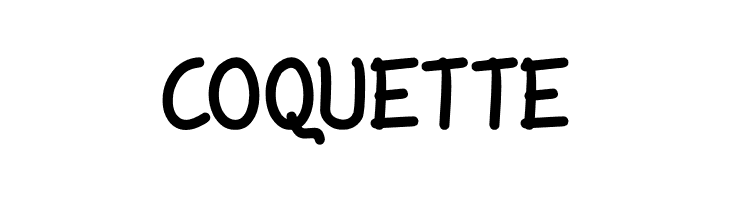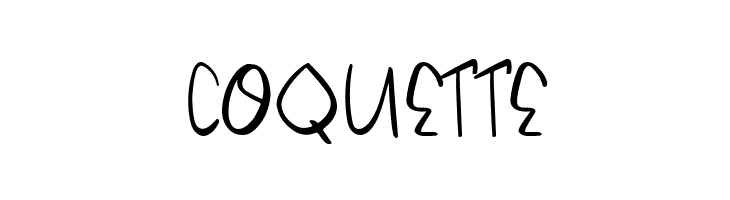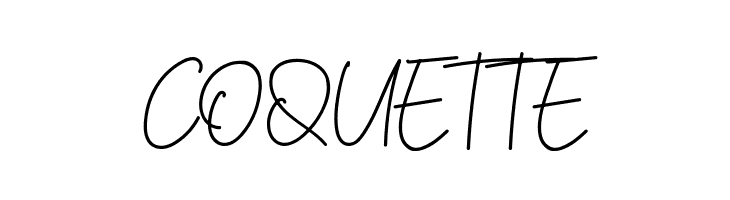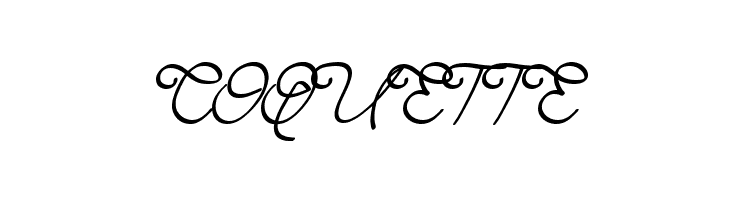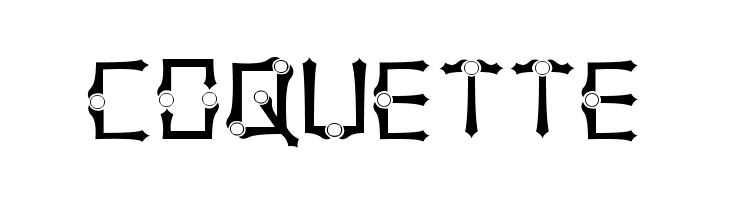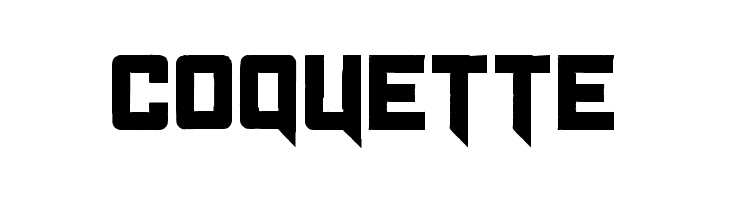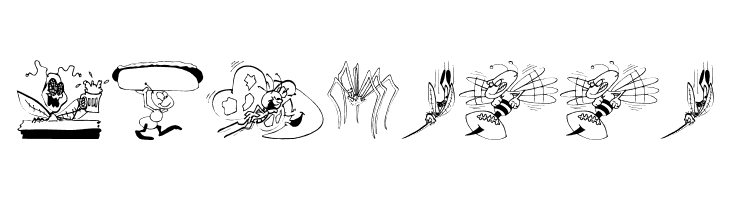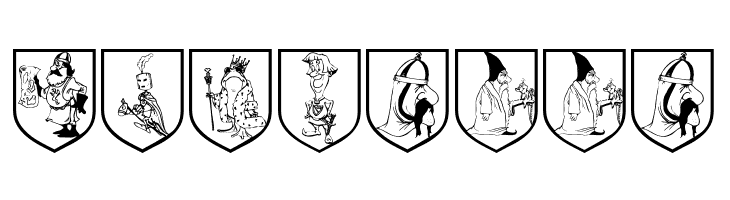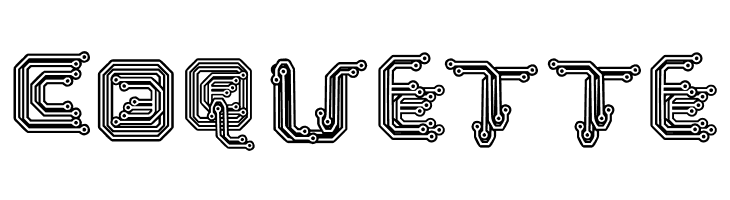
A bold, decorative font with interconnected loops and curves, ideal for creative display use.
A playful, hand-drawn font with a quirky and lively design.
Playful handwritten script font.
A decorative font with vine-like, organic letterforms.
A bold, geometric font with a strong, industrial aesthetic.
A bold, modern font with geometric lines and tight spacing.
A playful, illustrated display font with character drawings inside shields.
A playful and whimsical cartoon-style font with detailed illustrations.
A modern, decorative font with interconnected, flowing characters.
A modern, flowing font with interconnected, cursive-like characters.
A bold, edgy font with jagged, brush-like strokes and a graffiti-inspired style.
A bold, geometric display font with a retro arcade-inspired style.
A bold, playful font with a retro gaming vibe and geometric shapes.
A vintage, decorative font with ornate, calligraphic letterforms and high contrast.
A casual, handwritten font with a playful and dynamic style.
A playful handwritten font with a casual and friendly style.
A bold, handwritten font with a playful and casual style.
A modern, futuristic font with parallel line detailing.
A textured, jagged font with a dynamic and edgy appearance.
A circuit board-inspired font with intricate line work and a futuristic style.
A playful, pixelated font with interconnected square designs for a digital look.
A bold, expressive handwritten font with dynamic strokes and a playful style.
Elegant handwritten script font.
Casual handwritten script with playful, energetic strokes.
A decorative font with intricate circuit board patterns inside bold, blocky letterforms.
A playful, casual handwritten font with uneven strokes and a friendly vibe.